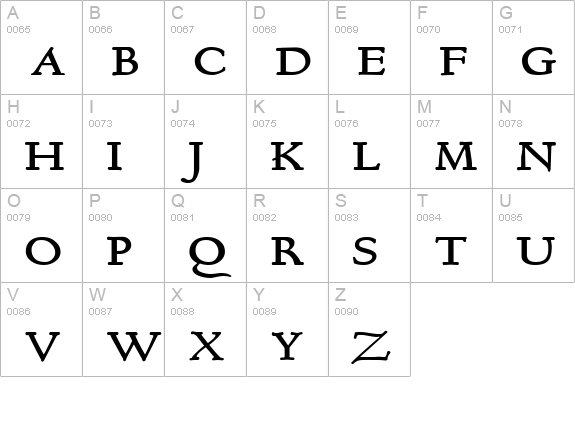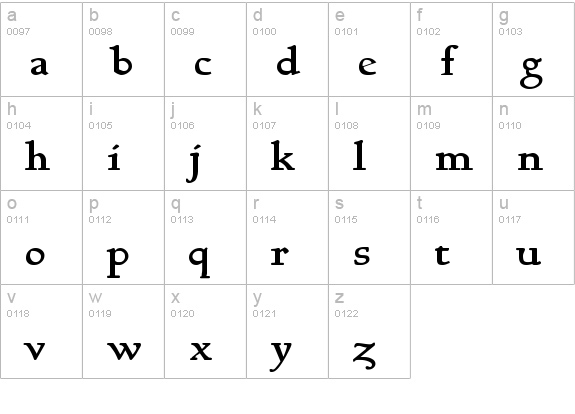
BerthamBold Font Details
Introducing BerthamBold font, a captivating typeface that exudes elegance and modernity. With its bold and stylish design, BerthamBold is perfect for making a statement in your projects. This versatile font is ideal for headlines, logos, posters, and more. Its strong presence on the page will grab the attention of your audience and leave a lasting impression. What's even better is that BerthamBold is available for free download at FontsMarket.com. Now you can add this stunning font to your collection without any cost. Don't miss out on the opportunity to elevate your designs with BerthamBold. Download it today and let your creativity shine!